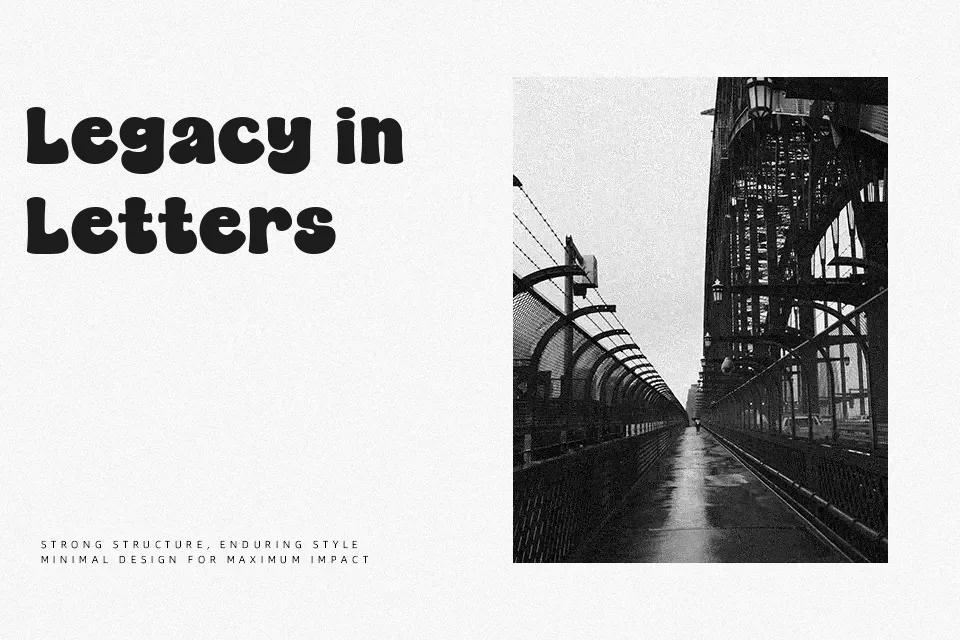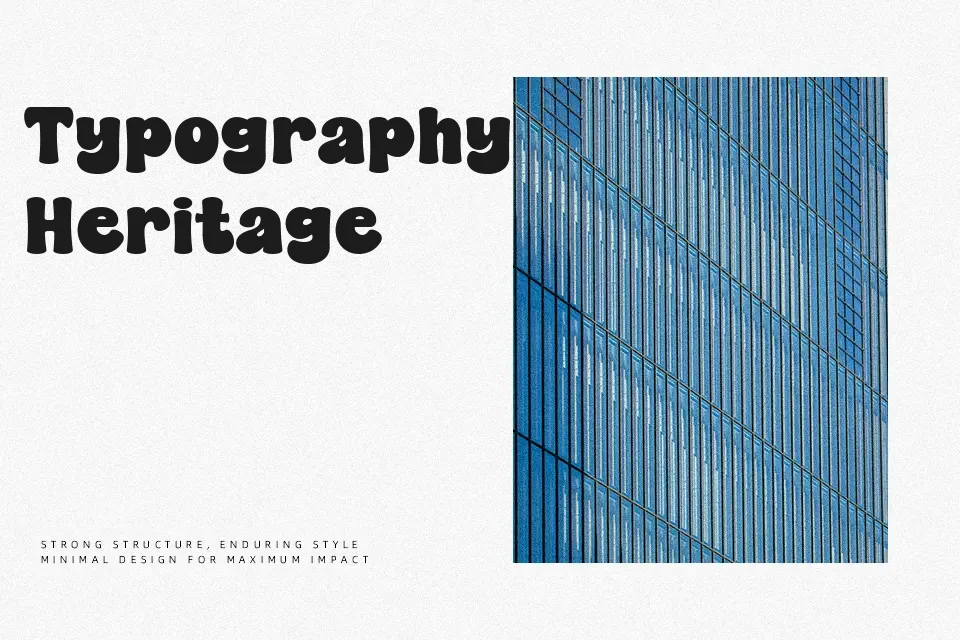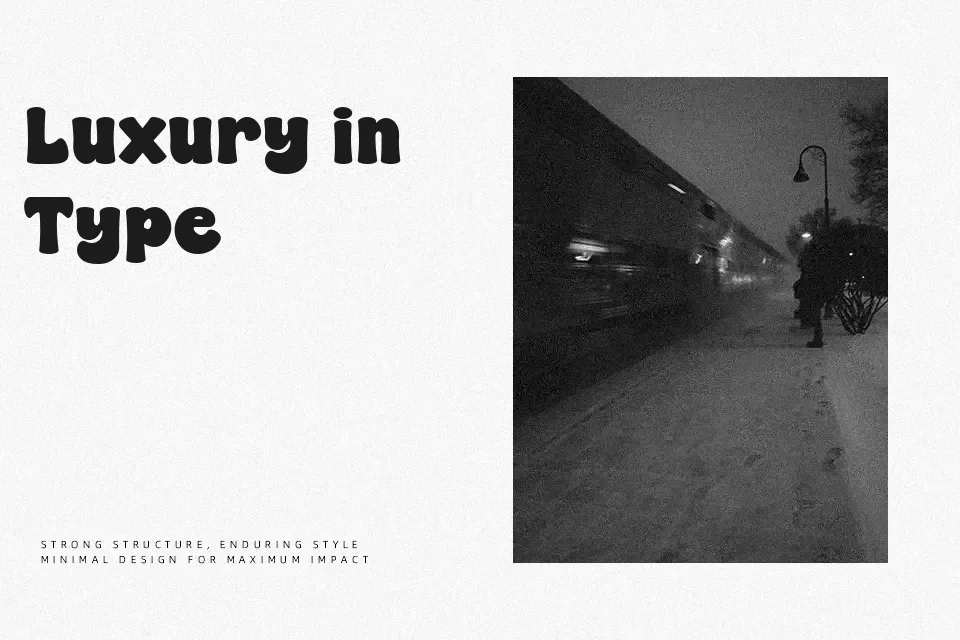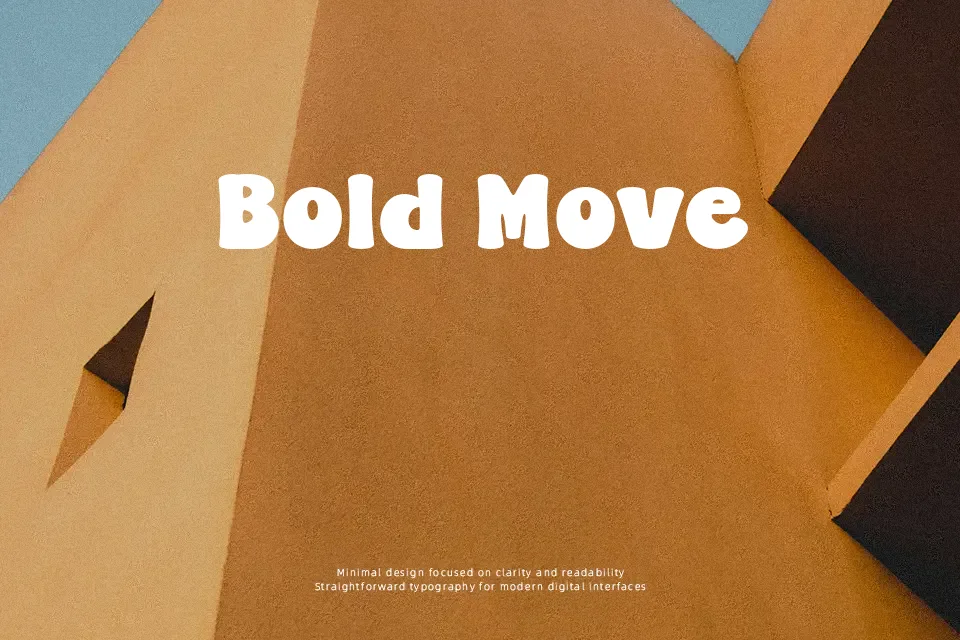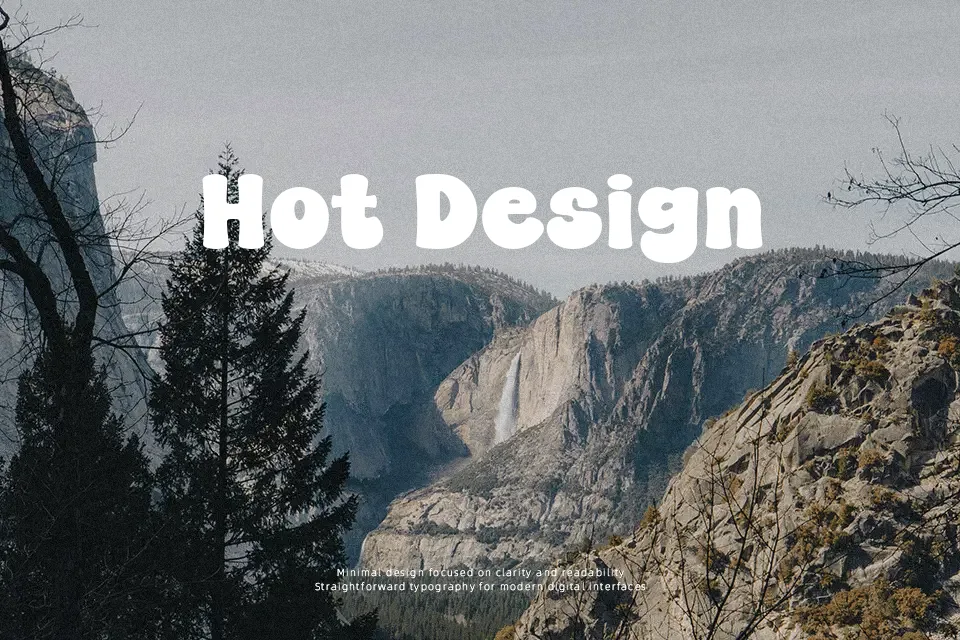
Super Peanut Font
Super Peanut Font delivers an overtly bold, cartoon display aesthetic characterized by hefty stroke weights and smooth, rounded contours. The letterforms feature minimal stroke contrast with softened terminals that give each character a friendly, approachable structure. Consistent character heights and snug spacing create a dense, impactful rhythm across headlines and short display phrases. This heavy weight ensures immediate visibility in children’s book covers, toy packaging, and animated video thumbnails. However, the thick strokes and compact internal counters reduce legibility in extended body text or small interface labels. The typeface performs best when displayed at larger scales where its rounded geometric curves remain distinct.
– Children’s book titles
– Animated series posters
– Casual mobile game logos
– Snack food packaging
– Extended editorial body text
– Corporate financial reports
– Small mobile interface labels
– Legal disclaimers